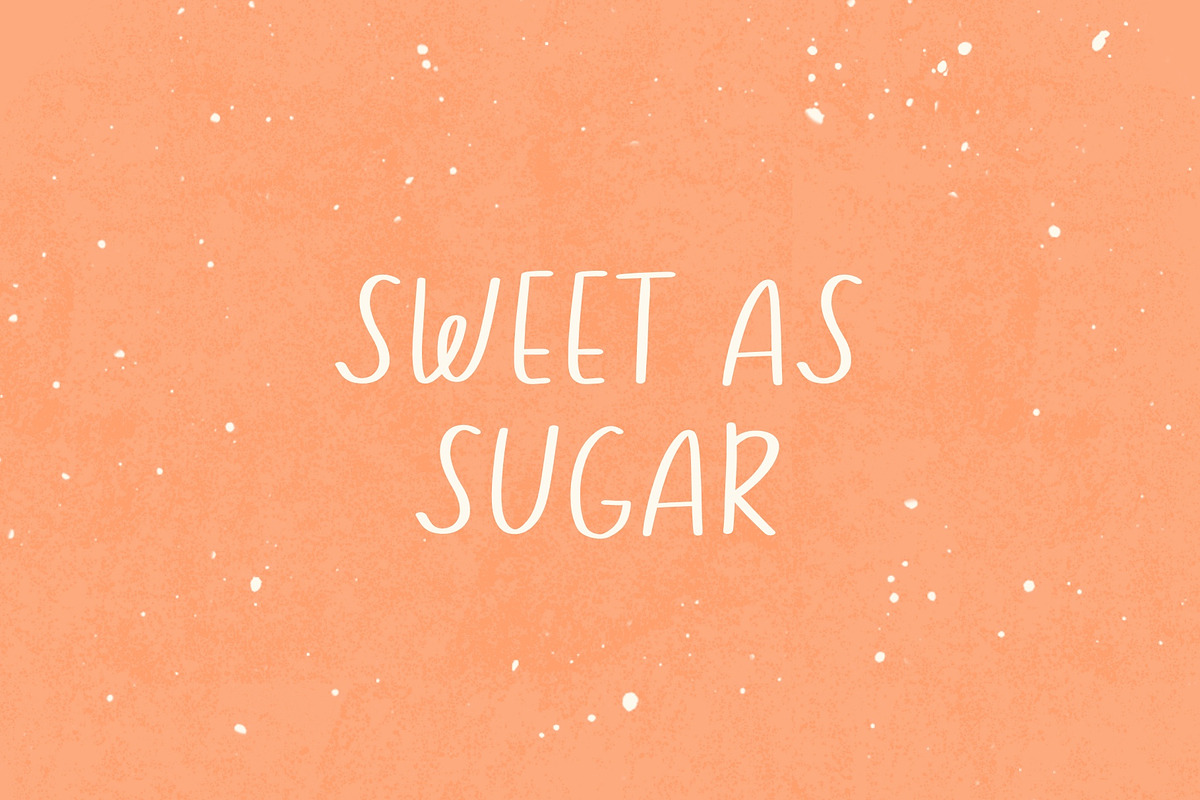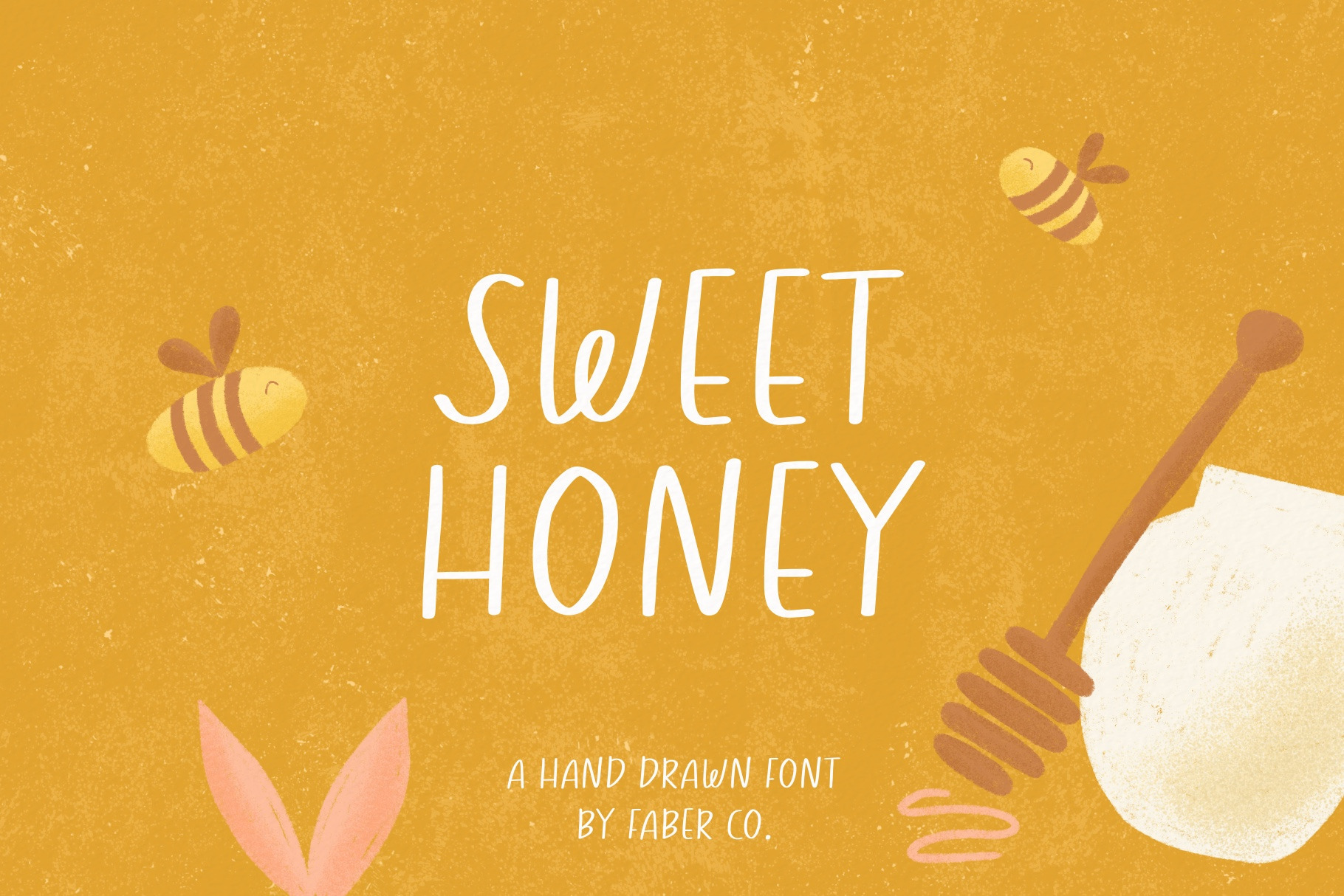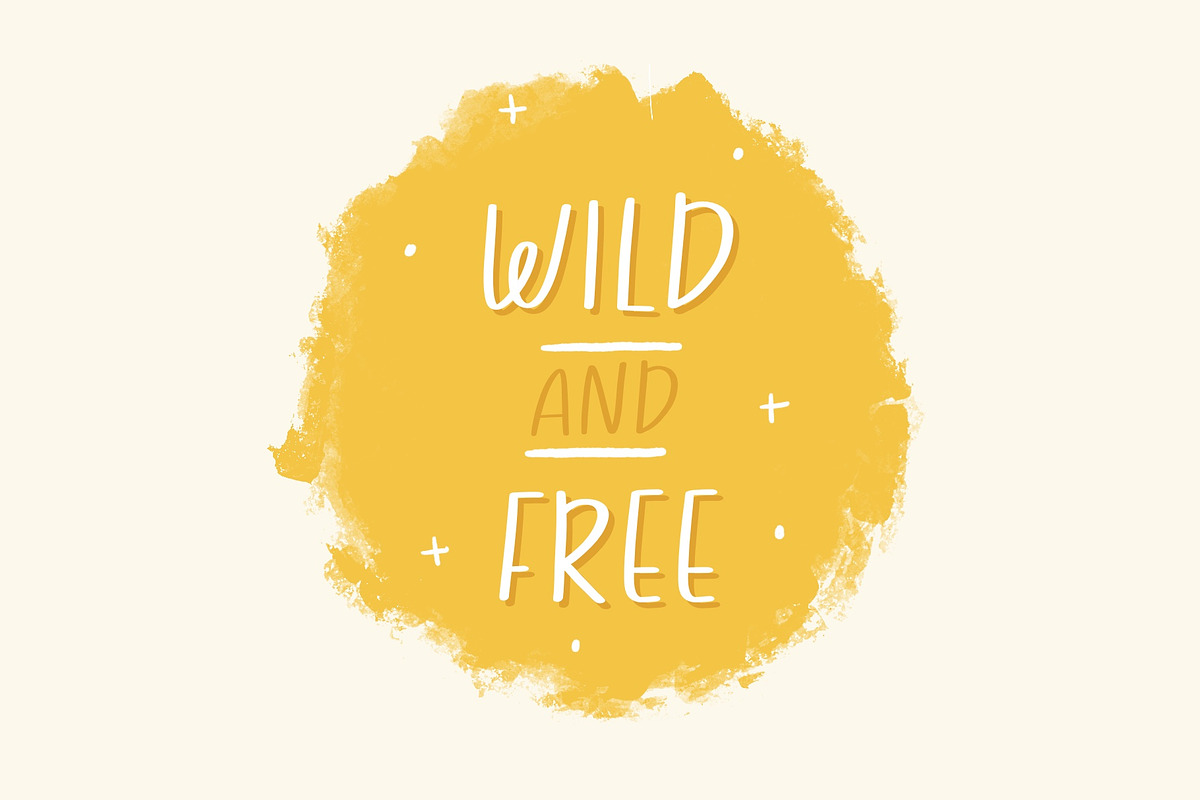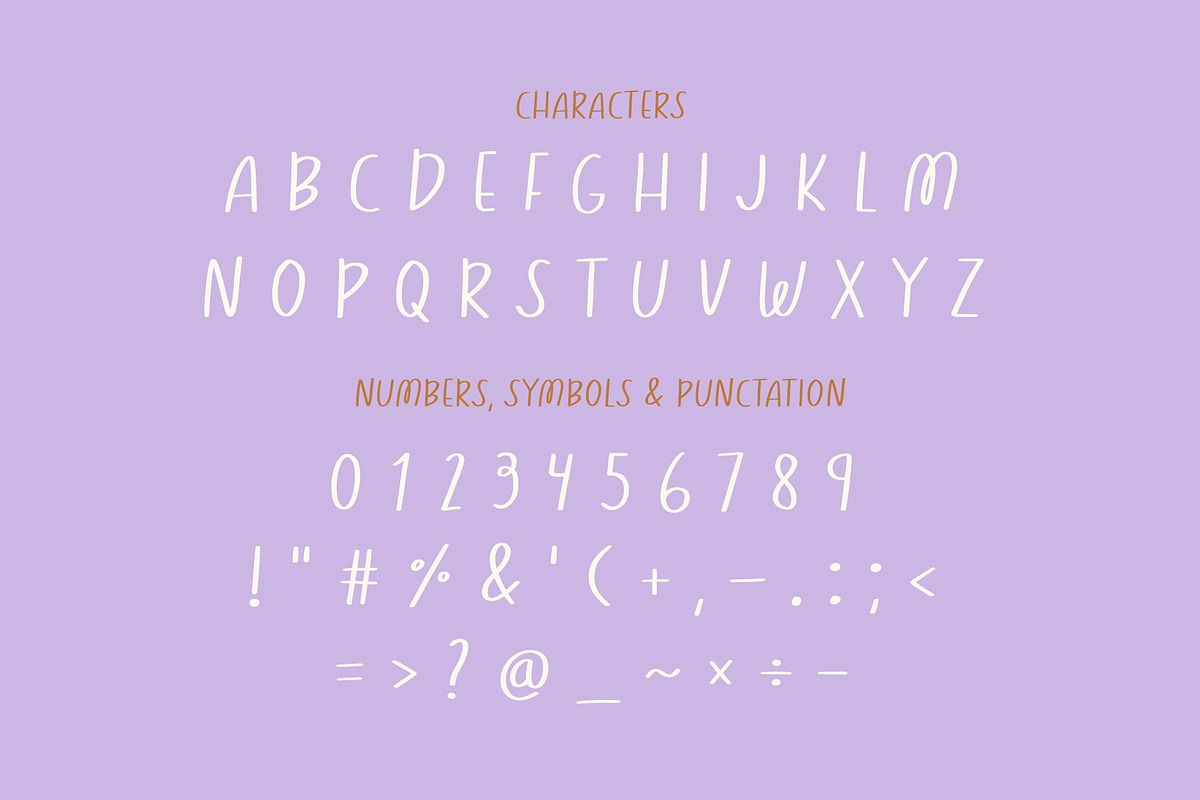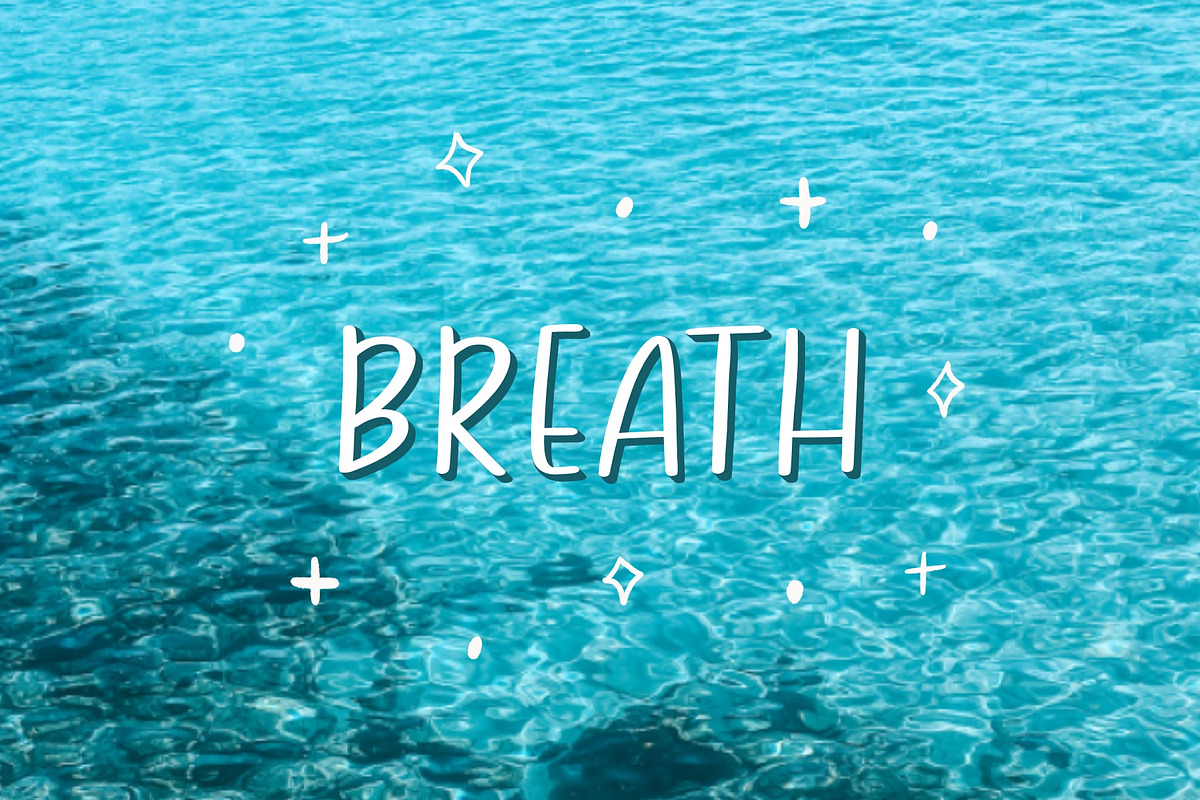
Sweet Honey | Handwritten Font
SWEET HONEY is a skinny and cute font in a hand-drawn style. It’s perfect to add a personal and playful touch to your illustrations, greeting cards, packaging, quotes, and much more.
This is an all-caps font with characters, punctuation, and symbols.